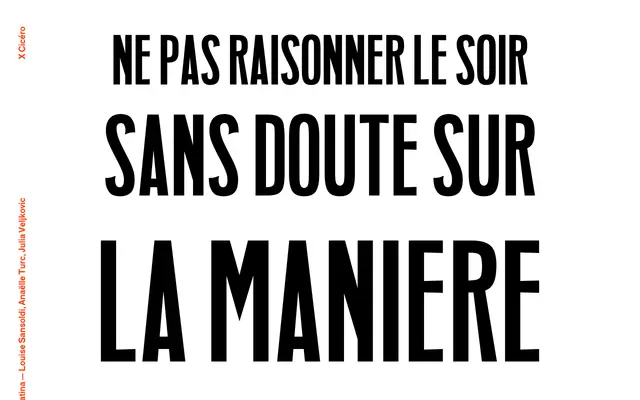
Squatina
A display typeface from X Cicéro, the type design programme at ESAD Grenoble-Valence, with very limited information available on its page.
Squatina is released through X Cicéro, the student type foundry associated with ESAD Grenoble-Valence. The page offers only a short French phrase set in capitals, giving little to go on beyond the typeface's display intent and institutional context. Further details on weights, styles and language support are not documented on the page.
The page content is too sparse to determine subcategory with certainty, but the all-caps display setting and the foundry context of X Cicéro, an experimental type school, suggest a display-oriented serif or headline design.